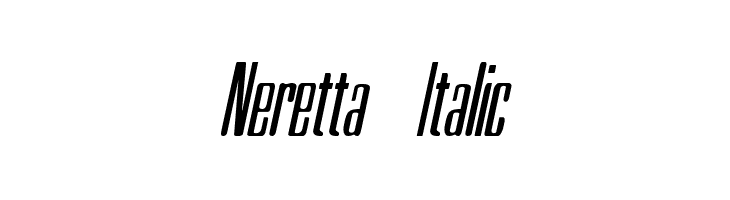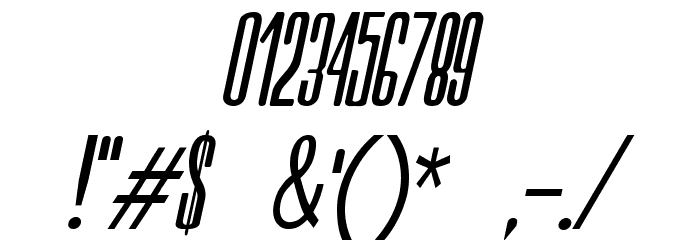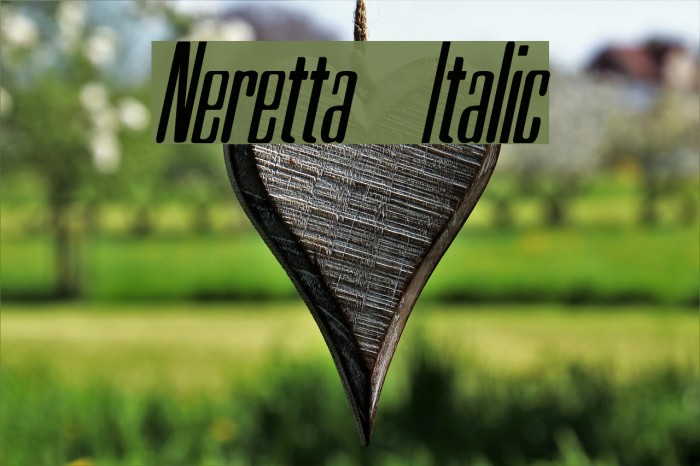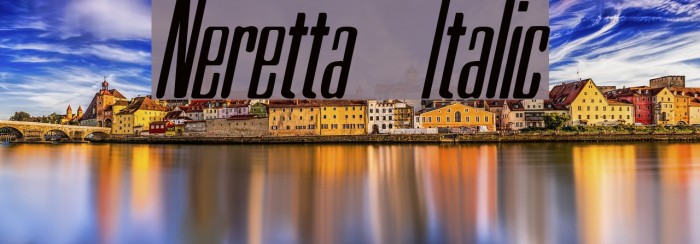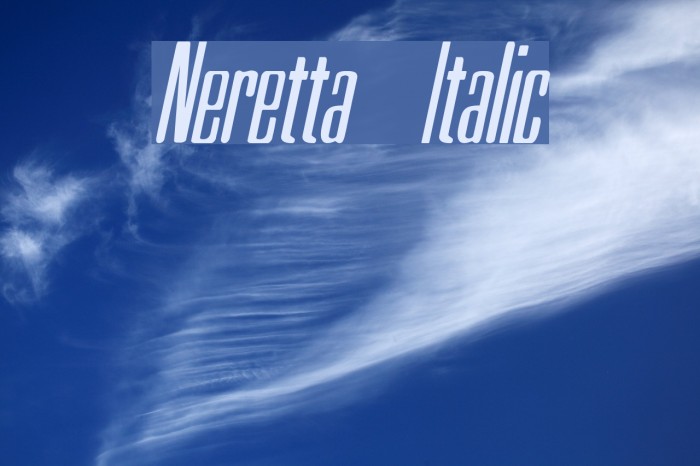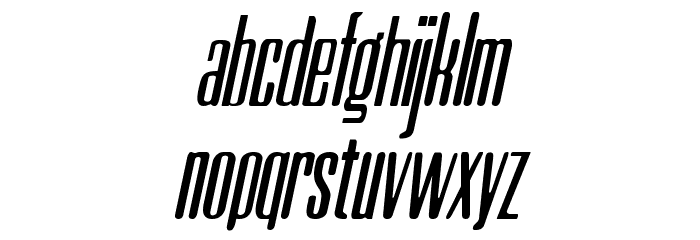
Neretta Italic Font
Neretta Italic Description
This font features a dynamic and energetic style with a pronounced italic slant, giving it a sense of motion and urgency. The characters are elongated and slightly condensed, which enhances the sleek and modern appearance. The strokes are consistent in weight, providing a uniform look across all characters. The uppercase letters are tall and commanding, while the lowercase letters maintain a balanced and cohesive flow. The numerals are distinct and clear, ensuring readability. Special characters are designed to complement the overall aesthetic, making this font versatile for various applications.
A dynamic, italic font with a sleek, modern style and consistent stroke weight from Uncategorized fonts.
- Proposed Projects: Ideal for branding, advertising, sports-related designs, and dynamic headlines.
- Use Case: Headlines, Logos, Advertising